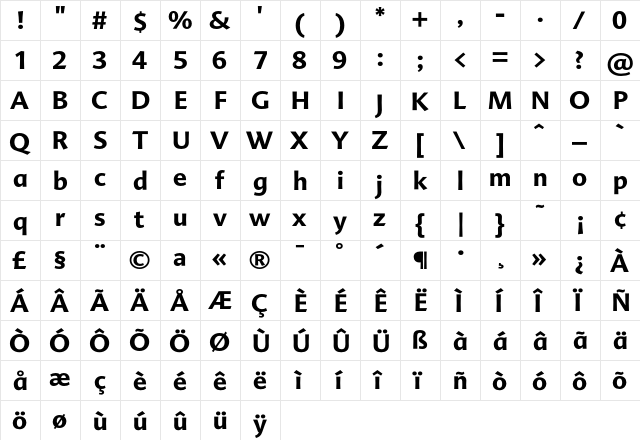
Advert Bold
Design Context for Advert Typeface
Advert is a composed and adaptable typeface that performs quietly and consistently across a wide range of design contexts. Its bold stroke weight gives it real presence on the page.
Pro Tip: Pair Advert with a font of contrasting weight or personality to build a more expressive typographic hierarchy.